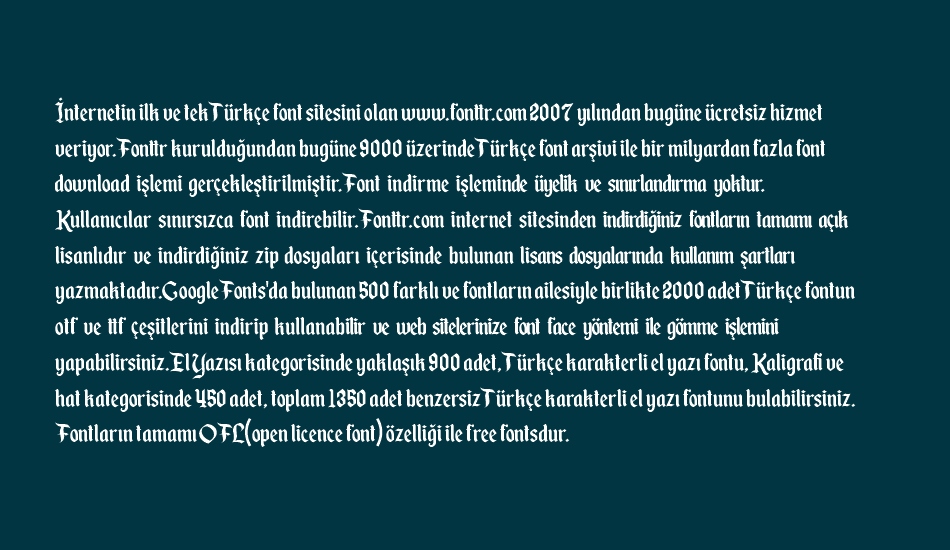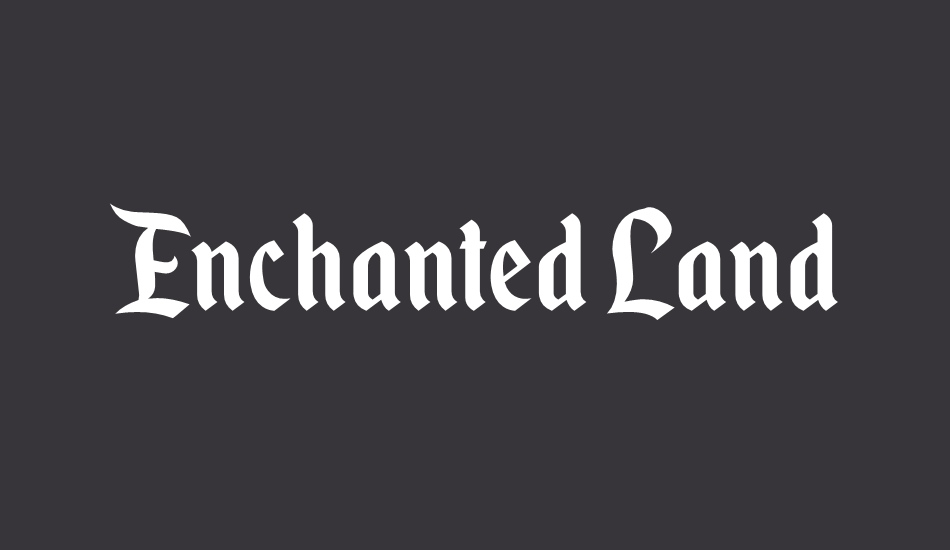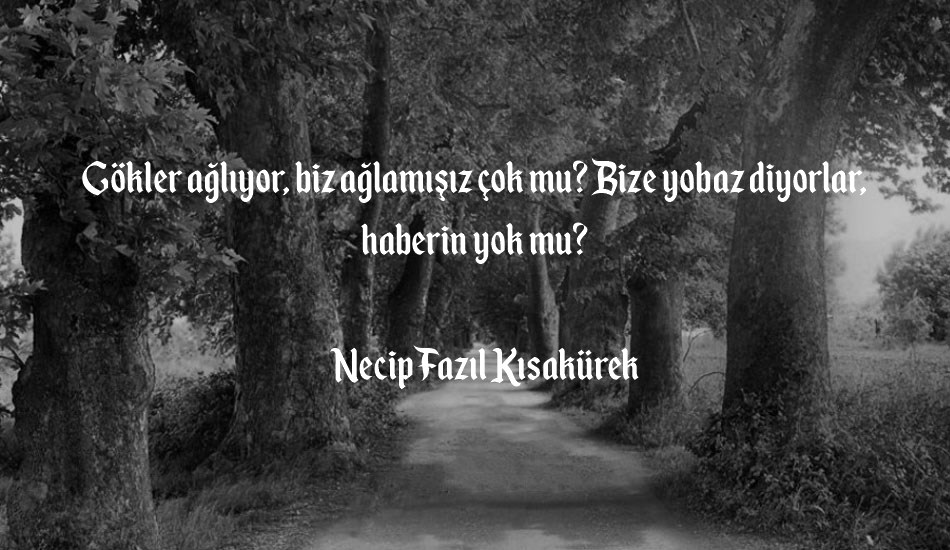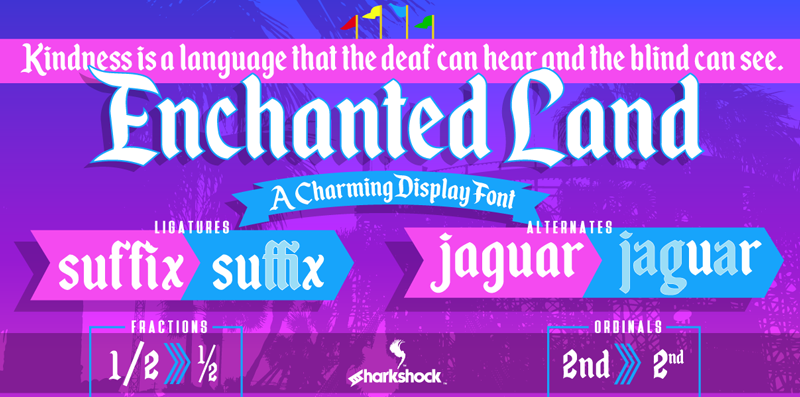
Enchanted Land font
by Sharkshock
Welcome to the Enchanted Land where fun has no age limit! This display font borrows obvious inspiration from the classic signage used by the famous west coast amusement park. There are several others floating out there but this one features a clean glyph set with many European characters
and diacritic support for extended latin. The whimsical style of the caps flow with consistency and shows up in the numbers and many other marks as well. OTF features like kerning, ordinals, fractions, ligatures, alternates, and proportional numbers and punctuation for uppercase characters are
all included. All caps are NOT recommended. Use Enchanted Land for a children's project, book title, or anywhere you'd like a little magic.